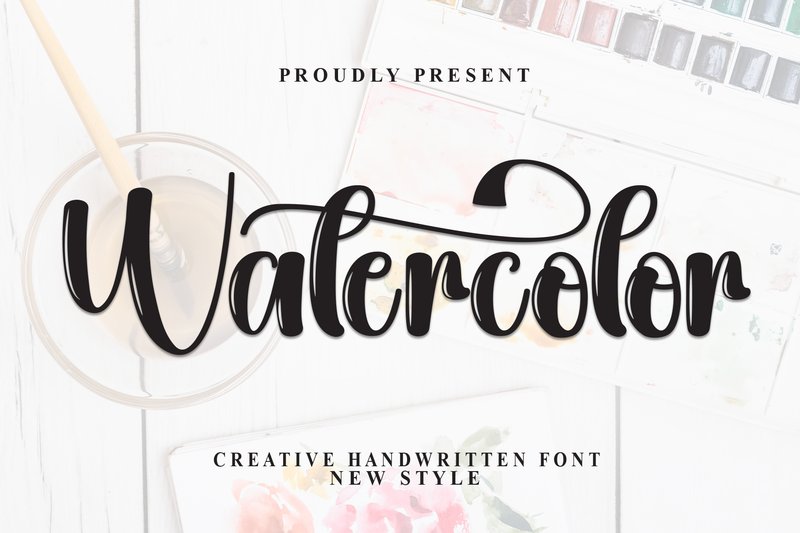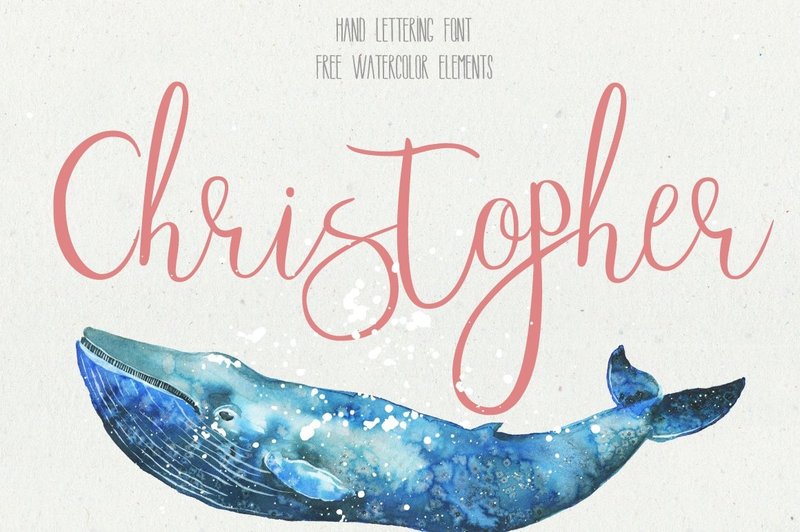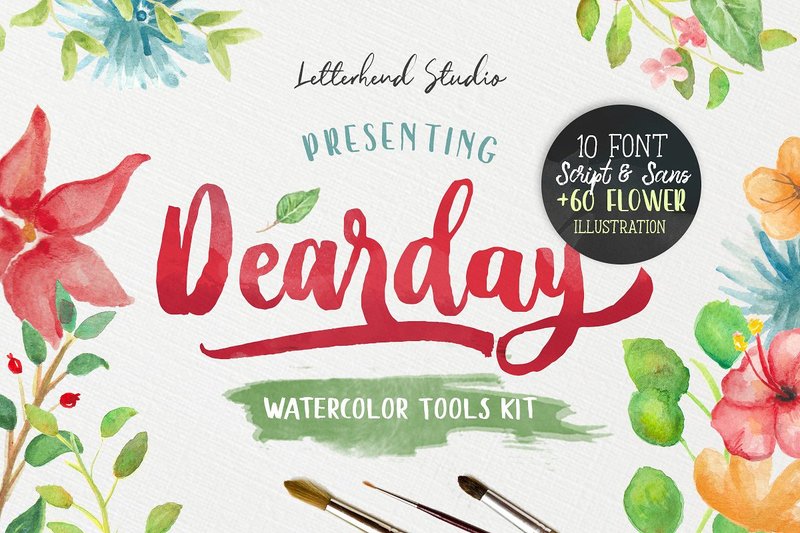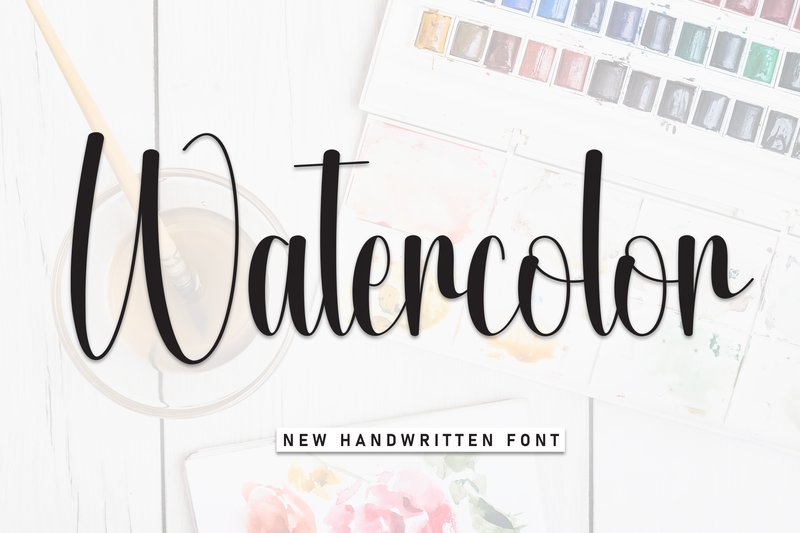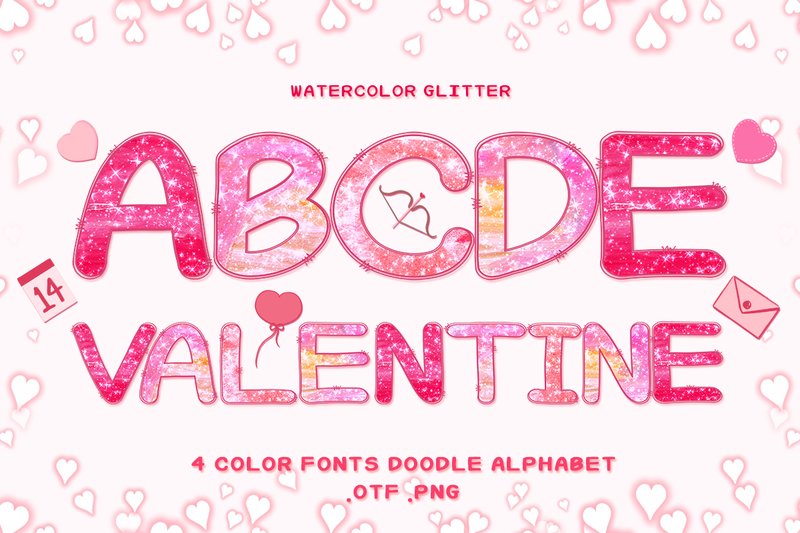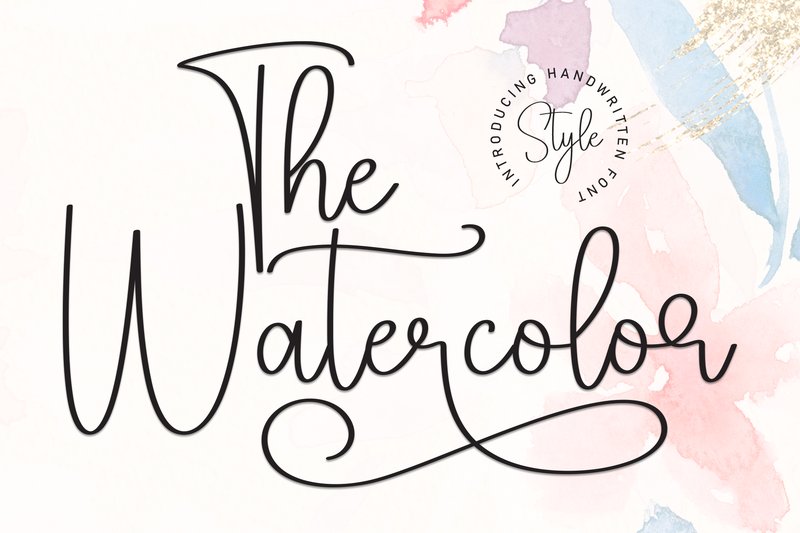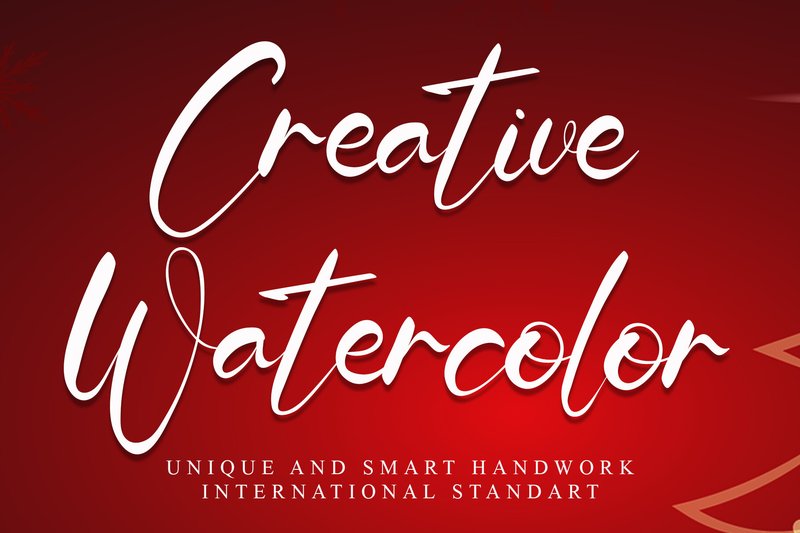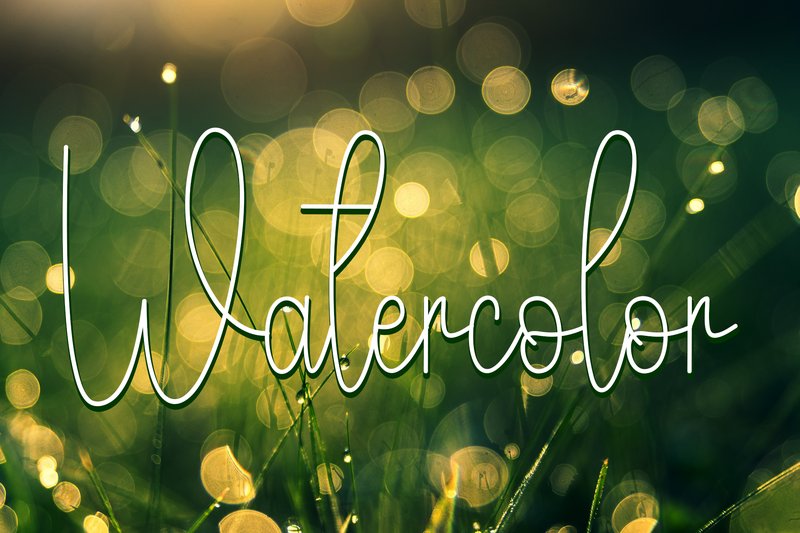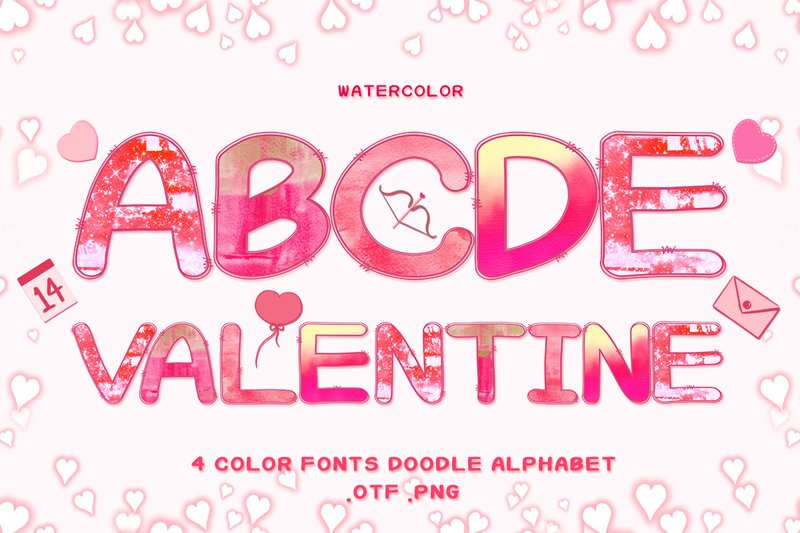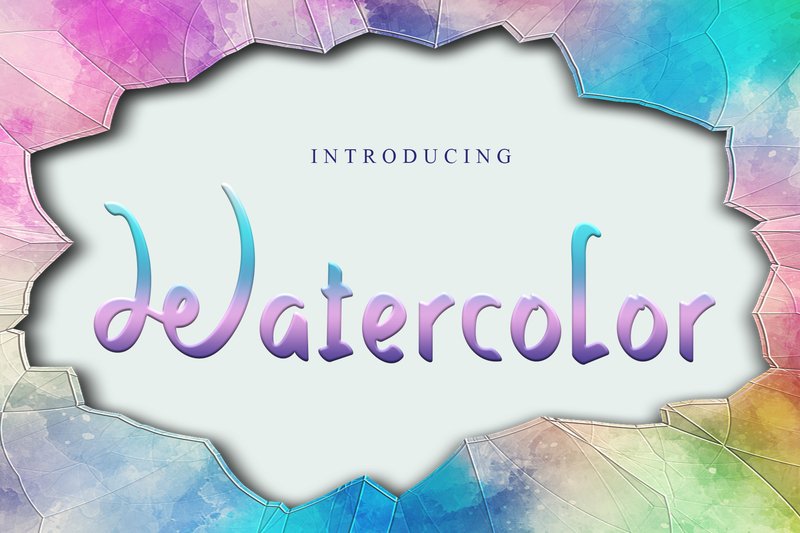
In the design landscape of 2026, the craving for authentic, handcrafted aesthetics is undeniable. Watercolor fonts perfectly answer this call, offering a beautiful blend of organic artistry and digital polish. They bring a soft, personal, and painterly touch to everything from branding and wedding stationery to social media graphics and DIY crafts. This style adds a layer of warmth and sophistication that sterile digital fonts can’t replicate. To help you tap into this popular trend, we’ve handpicked the 27 most stunning and in-demand watercolor fonts that are making waves this year.
1. Watercolor (by andikastudio)
Watercolor (by andikastudio) evokes the intimate feeling of a personal, handwritten letter, instantly adding warmth and authenticity to any project. This font doesn’t just display words; it breathes life into them with its fluid, organic strokes and uniquely crafted letterforms. Each character carries a distinct touch, creating a timeless and elegant flow that feels both spontaneous and artfully composed, perfect for designs that need to connect on a personal level.
- Fluid, handwritten script style
- Unique character designs for an authentic touch
- A timeless and elegant aesthetic
- Smooth, organic letterforms that feel personal and alive
- Sophisticated branding and signature logos
- Eye-catching quotes for social media graphics
- Elegant wedding invitations and stationery
- Artisanal product packaging and labels
2. Christopher Font (by Julia Dreams)
Christopher Font (by Julia Dreams) exudes a wave of gentle, handcrafted charm that feels both personal and refreshingly modern. This handwritten script possesses an authentic, slightly uneven texture, giving it a friendly and approachable personality perfect for designs that need a human touch. More than just a font, this package is a mini design kit, complete with a delightful collection of watercolor splashes and elements that perfectly complement its artistic aesthetic.
- A friendly, handwritten script font with an authentic, organic feel.
- A clean, legible style that maintains its handcrafted look even at smaller sizes.
- Creating charming wedding invitations, birth announcements, and greeting cards.
- Branding for small shops, artisanal cafes, and children’s boutiques.
- Designing custom t-shirts, tote bags, and other apparel.
- Crafting engaging social media posts and inspirational quote graphics.
3. DearDay (by letterhend)
DearDay (by letterhend) embodies the tender, organic feel of a personal sketchbook brought to life. More than just a single font, this comprehensive collection offers a complete design toolkit for creating soft, painterly compositions. Each of the ten included fonts carries a distinct yet harmonious handwritten quality, allowing you to layer scripts, serifs, and sans-serifs with the effortless grace of an artist’s touch. The result is a design that feels both intimate and professionally polished, perfect for projects that require a genuine, human connection.
- A versatile collection of 10 unique, complementary fonts.
- A mix of script, serif, and sans-serif styles designed for seamless pairing.
- Wedding stationery, event invitations, and romantic announcements.
- Branding for boutiques, bakeries, or artisanal product lines.
- Creating heartfelt social media graphics and quote-based artwork.
- Personalized stationery, greeting cards, and elegant packaging design.
4. Watercolor (by Roronoa zoro.S.P.D)
Watercolor (by Roronoa zoro.S.P.D) replaces stiff, formal scripts with an organic flow that feels truly alive. Each character moves with the effortless elegance of a dancer, connecting fluid strokes and gentle curves to create a look of pure sophistication. This font brings a timeless sense of beauty to any layout, making it an essential tool for designers looking to add a touch of whimsical romance and polish to their current projects.
- Graceful, handwritten letterforms with a natural flow.
- Elegant curves that mimic authentic brush strokes.
- A soft, romantic aesthetic perfect for sophisticated designs.
- Wedding invitations and high-end event stationery.
- Boutique branding, logos, and product packaging.
- Greeting cards and heartfelt quotes for social media.
5. Watercolor Glitter (by daisy world)
Watercolor Glitter (by daisy world) is like bottling the first blush of a new romance; it’s a soft, sparkling declaration of affection in typographic form. This color font from daisy world feels less like a digital asset and more like a handcrafted love letter, blending the gentle bleed of watercolor washes with a delicate dusting of glitter. Each character carries an earnest, heartfelt charm, making it an irresistibly sweet choice for designs that need to feel personal, whimsical, and genuinely adorable. It’s a fresh font that radiates warmth and pure creative joy.